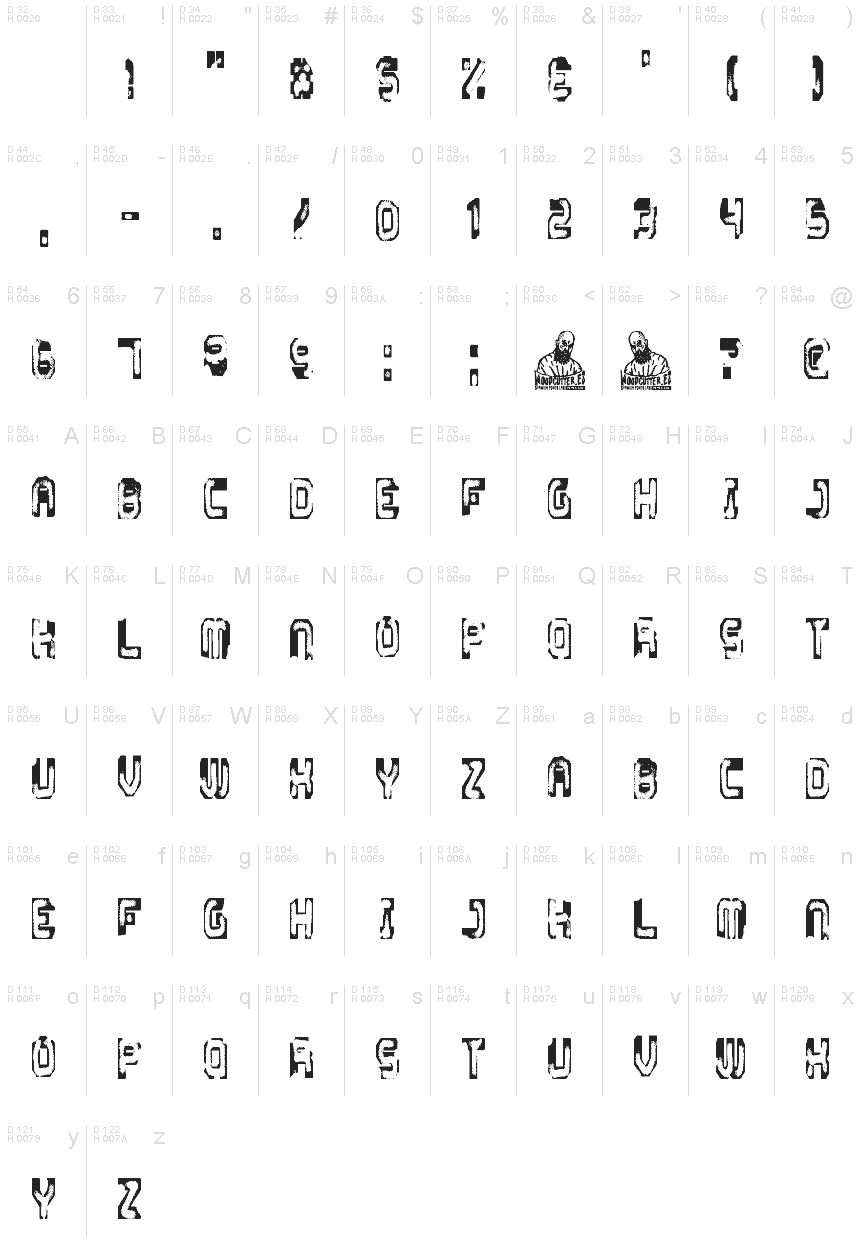
Manifiesto Conservador
This is Manifiesto Conservador, and you can download it for free from Woodcutter Fonts. This bold and condensed font presents a bold and imposing style that’s perfect for headlines and branding projects. It features an eroded aesthetic that gives this all caps font a grunge and rebellious effect, resulting in a visually strong design that leaves a strong impression.
Many businesses and individuals prefer having a certain vibe for their website, and with Manifiesto conservador, you can have a unique look that gives your website and marketing materials that much needed distinctive feature that helps it stand out. Use Manifiesto Conservador for your next presentation as an outstanding header, create appealing flyers with this freebie, add it to your online shop’s logos, and for packaging designs. And since it’s a free font, you can go ahead and decorate your home with it in framed prints or by using it in handwritten projects.